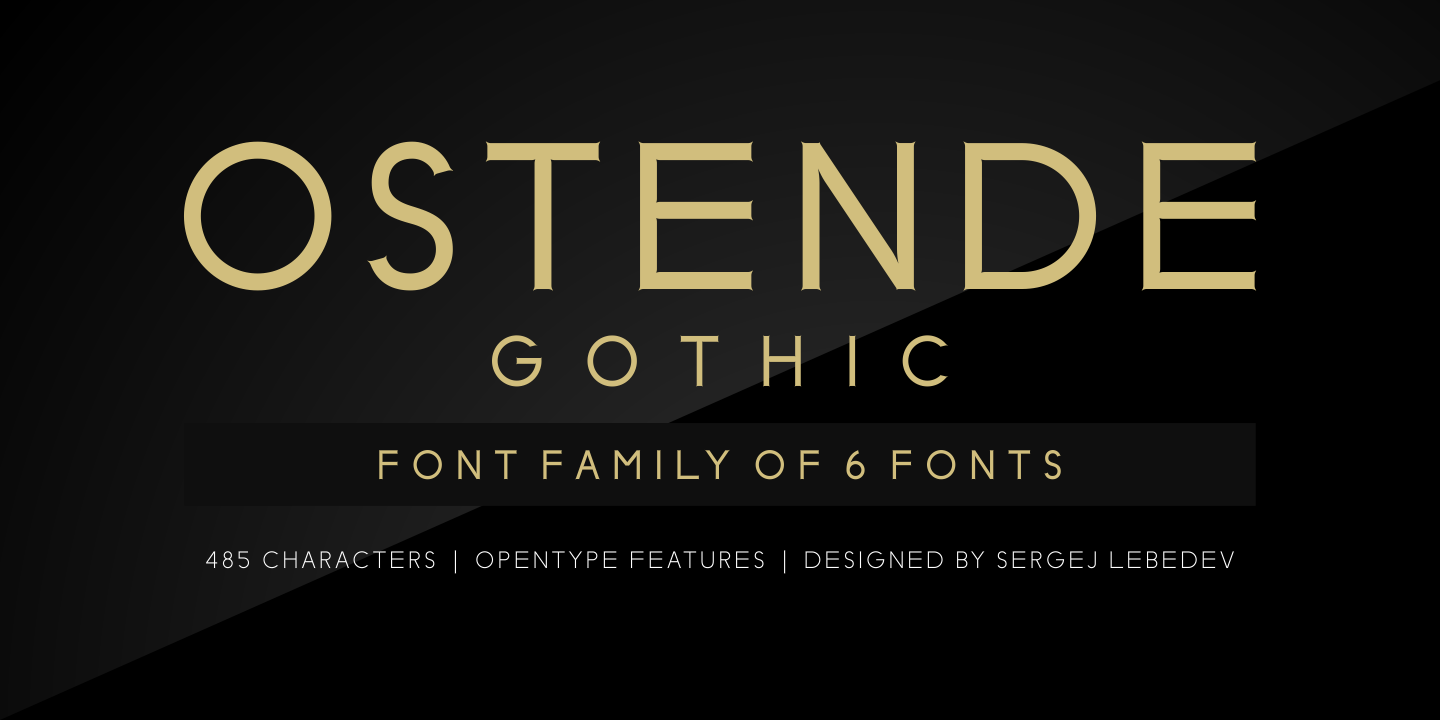
Designed by Sergej Lebedev, Ostende Gothic is a sans serif font family. This typeface has six styles and was published by Sergej Lebedev.
The font family “Ostende Gothic” is a modern, constructed typeface that is particularly well suited for printed materials, graphic design, communication design and product design. The fonts are equipped with small, discreet serifs, have an exclusive design style and many OpenType features. The font family “Ostende Gothic” was named after the port city, resort Ostend on the Belgian coast.